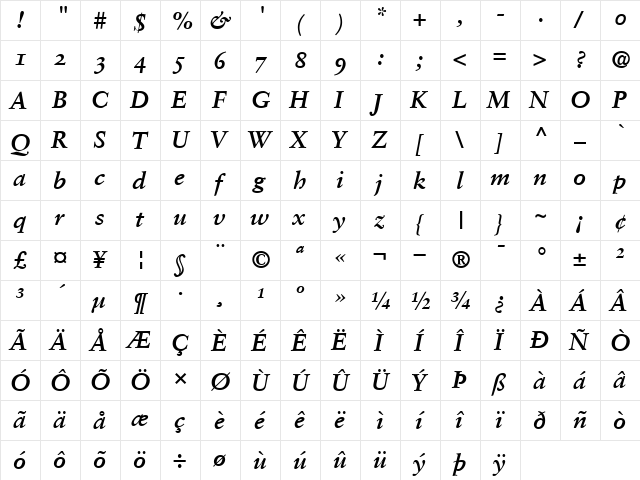
SabonOldstyleFigures BoldItalic
Design Context for SabonOldstyleFigures Typeface
SabonOldstyleFigures brings classic typographic sensibility to the table — its serifs and measured letterforms reflect centuries of print heritage. The slanted form adds forward momentum and visual energy. Its bold stroke weight gives it real presence on the page.
Pro Tip: Set SabonOldstyleFigures with slightly loose tracking in headlines to let each letterform's detail read clearly at display sizes.